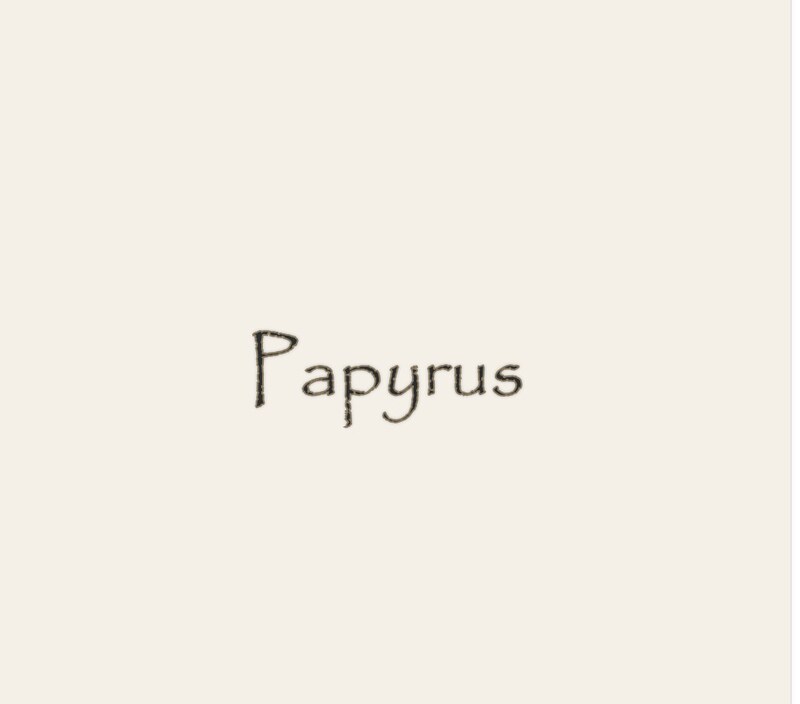
Papyrus Font Designer is a text styling tool that enables users to create visual designs using the Papyrus typeface. It is primarily focused on generating decorative text outputs for creative and informal design use cases, such as invitations, quotes, and headings.
The tool provides a simple interface for applying the font and formatting text into visually styled compositions. It is typically used by individuals or creators who need quick typography-based designs without using complex graphic design software. The application reflects a niche category of lightweight design tools that focus on specific fonts or stylistic effects rather than full design suites. By narrowing its scope to a single well-known typeface, Papyrus Font Designer simplifies the process of creating themed text visuals. It is generally suited for casual creative use, personal projects, and small-scale digital or print design tasks requiring distinctive typography.
Papyrus Font Designer Creates Styled Text Designs Using The Papyrus Font